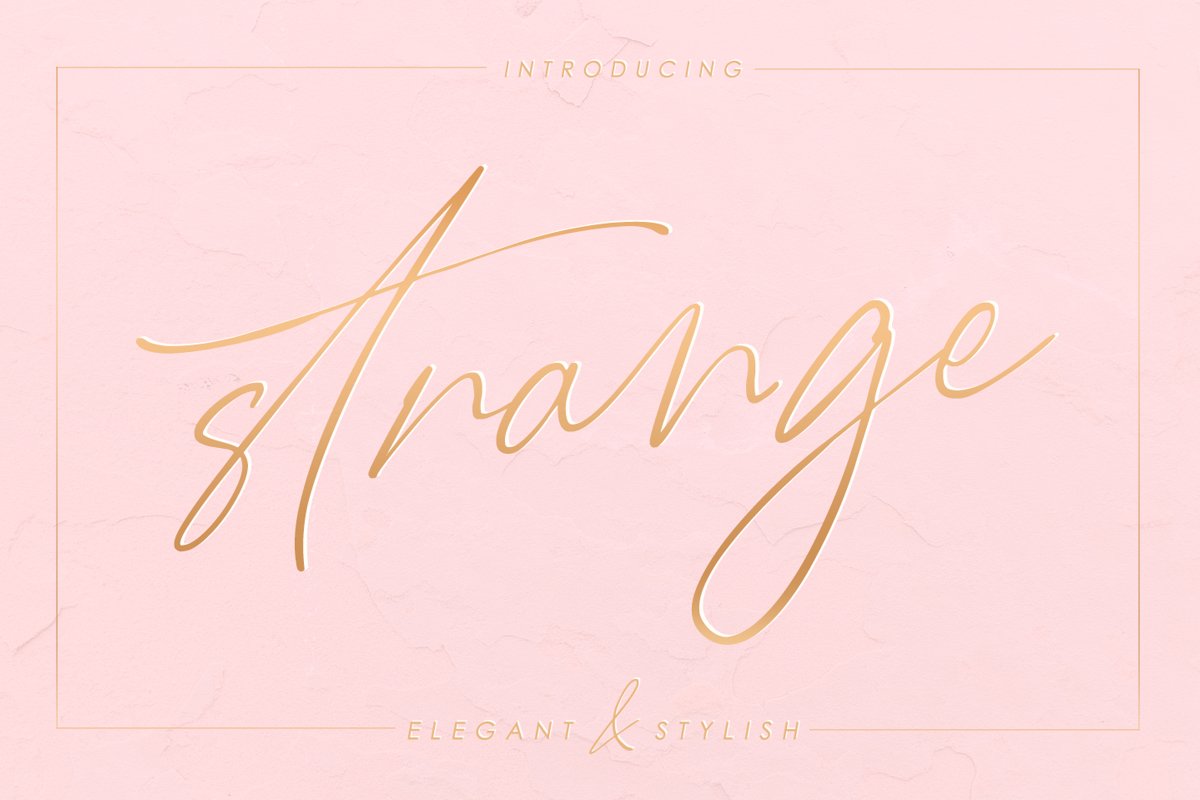
Strange - elegant & stylish
strange
Strange - Unique stylish handwritten font.
Sets the mood, inspires emotions,
helps the perception of the image before reading the text.
Perfect for your product presentation.
Ligatures (ah, ak, al, all, an, ant, as, ass, ast, at, att, bb, ch, ck, cl, ct, ee, ek, el, ell, es, ess, et, ett, ff, ft, ib, il, ill, im, in, is, it, itt, ll, mt, nt, ob, oh,
ok, ol, oll, om, on, oo, os, ost, ot, ott, rr, ss, st, tt, ub, uk, ul, ut, utt )